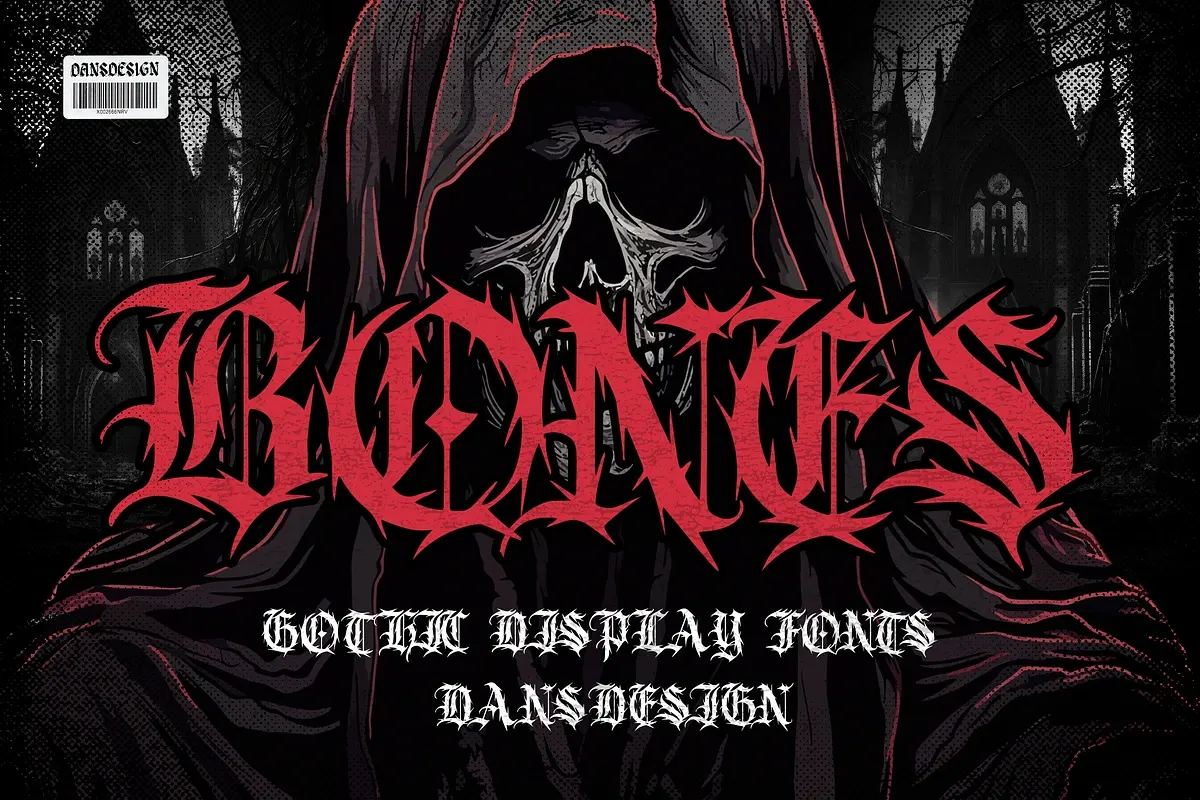
BONES Blackletters Gothic Display Free Download
BONES Blackletters Gothic Display Free Download is a bold and intense typeface inspired by traditional blackletter and gothic calligraphy, with a modern, edgy twist. Featuring sharp serifs, high contrast strokes, and a dramatic structure, BONES is perfect for metal band logos, tattoo designs, dark-themed posters, streetwear branding, and vintage horror artwork.
This font delivers raw attitude and visual impact, making it ideal for designers looking to create something dark, rebellious, and full of character. It’s especially powerful for large headlines and attention-grabbing visuals that need to stand out with gothic energy.